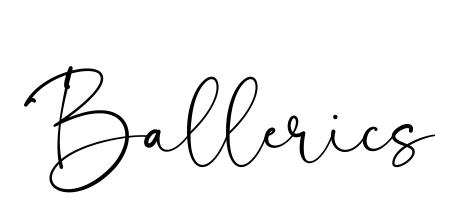
Ballerics
Ballerics: A graceful script font, Ballerics dances across the page with elegant curves and delicate flourishes. Its flowing letters evoke a sense of effortless beauty and sophistication, perfect for wedding invitations, branding, or any project demanding refined charm. Its subtle elegance whispers, rather than shouts.